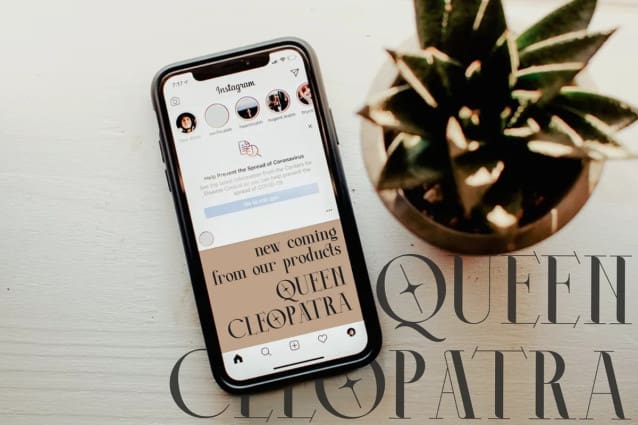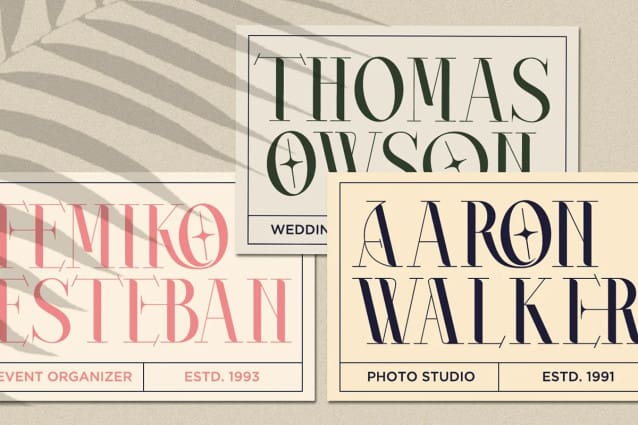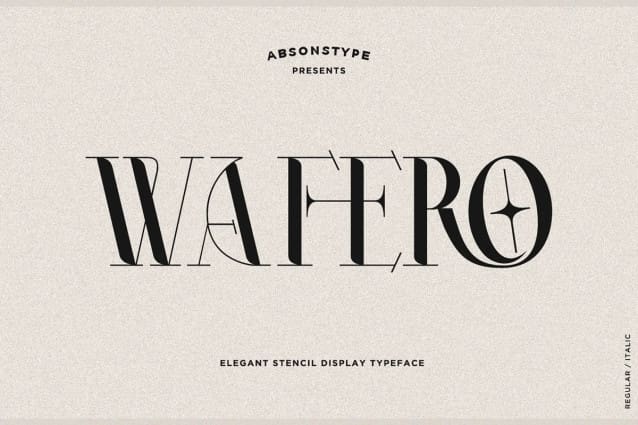
Wafero Font
Wafero Font, a display font with elegant, classic & stylish curves. It’s romantic, classy and modern all wrapped into one, and surely can not be missed in your font collection.